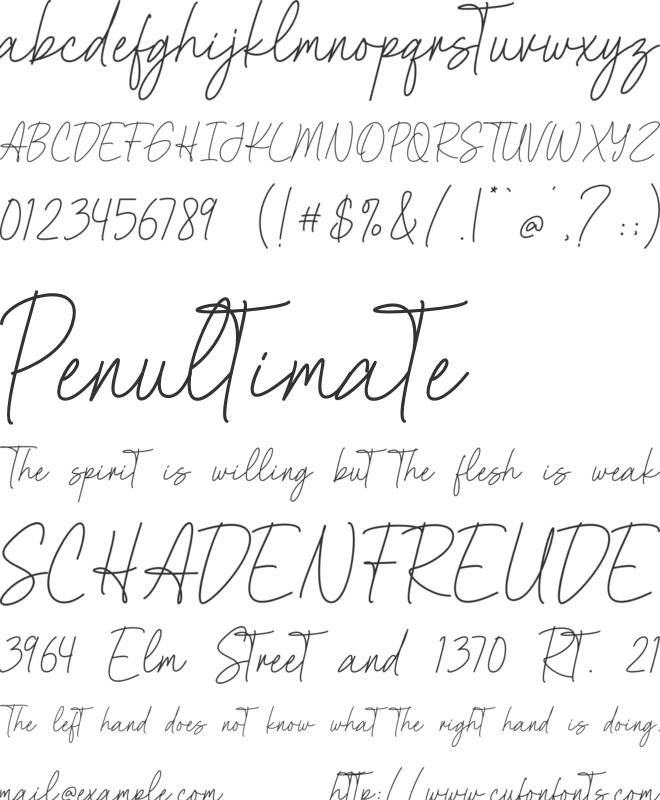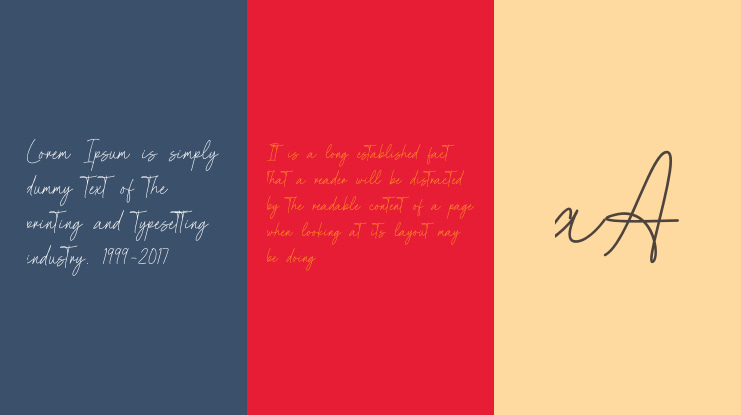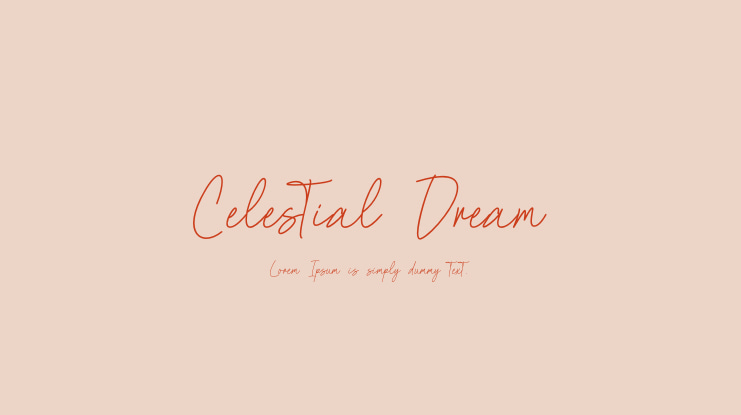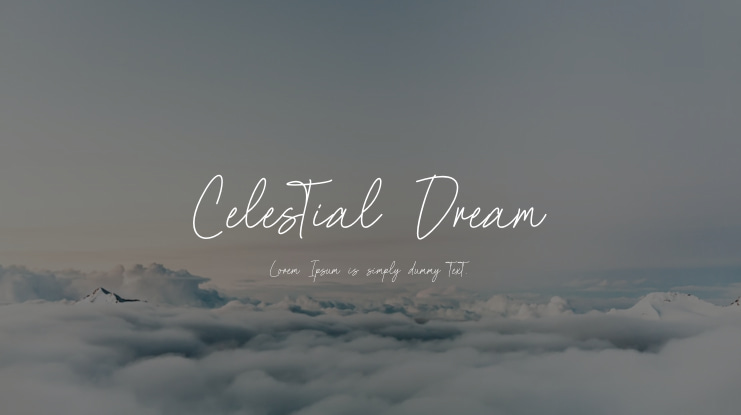
Celestial Dream Font
Jefri Dwi Alfatah
Celestial Dream is a modern handwritten script font that exudes elegance and charm. With its smooth curves and delicate strokes, this font captures the essence of sophisticated artistry.